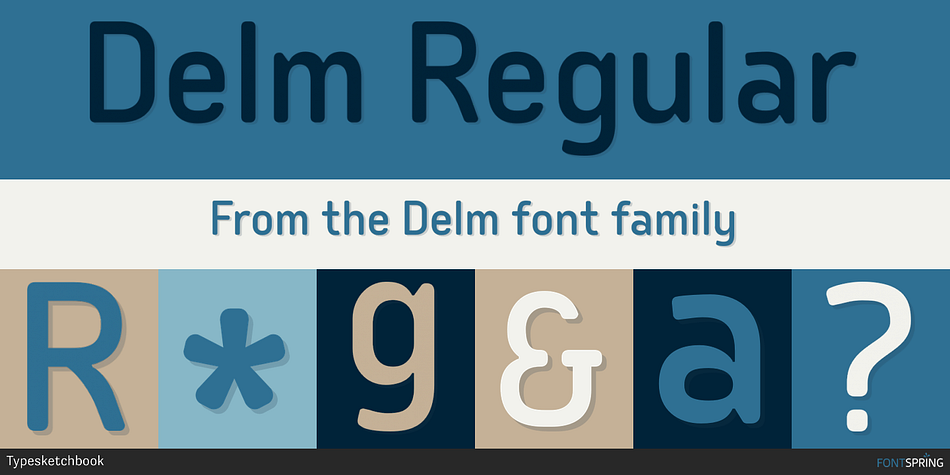
Delm Regular
Designed by Chatnarong Jingsuphatada, Delm is a sans serif font family. This typeface has eighteen styles and was published by Typesketchbook.
Although ink trap became obsolete since the digital age has settled in, we are still enchanted by the form and thus let it breath new life into the new typeface Delm.
Although ink trap became obsolete since the digital age has settled in, we are still enchanted by the form and thus let it breath new life into the new typeface Delm. A San Serif design, Delm has a simple and beautiful construction. Minute details are subtly presented such as the leg of a, b, d whose bulbous ends giving them distinctive and friendly flavour. The ink traps which cease to serve functionally instead are employed to add character. It is an original type that suits different needs of work nicely.